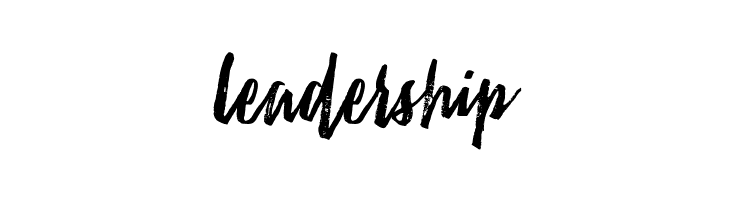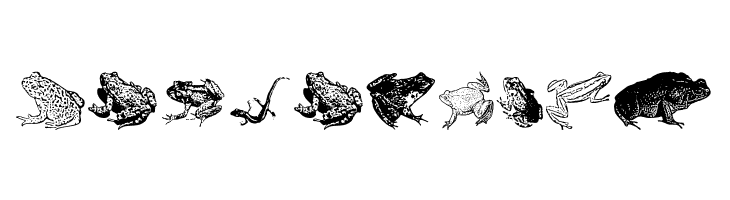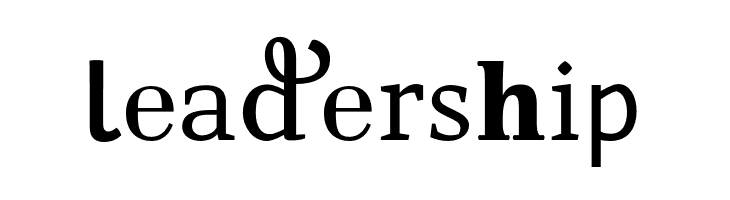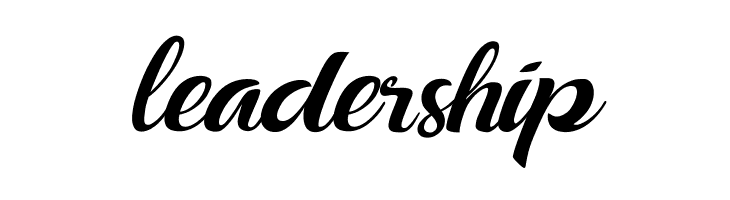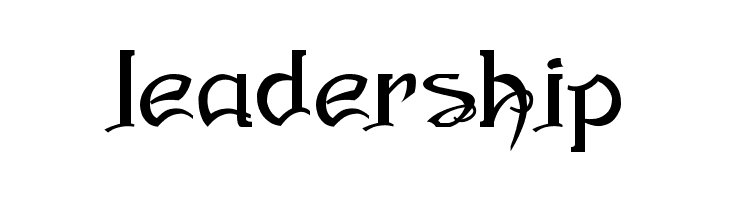
An ornate and decorative font with intricate swirls and flourishes.
A bold, distressed font with a rugged, grunge-like appearance.
A bold, flowing script font with elegant curves and dynamic style.
A bold, graffiti-inspired font with sharp, angular lines and dynamic energy.
A modern serif font with bold, elegant characters and unique design elements.
A modern, geometric sans-serif font with a sleek, condensed design.
A bold, geometric font with a modern and clean aesthetic.
A bold, modern sans-serif font with a condensed and geometric style.
A bold, geometric font with a modern and assertive style.
A bold, italicized font with strong lines and a modern, dynamic style.
A modern, italic, and condensed font with a sleek and dynamic style.
A modern, geometric sans-serif font with clean lines and uniform stroke width.
A modern, italic, and condensed font with a sleek and dynamic appearance.
A bold, modern font with a geometric and condensed style.
A modern, semi-bold italic font with a sleek, condensed style.
A casual, handwritten font with a playful and informal style.
An elegant script font with classic, flowing curves and decorative flourishes.
A decorative font with detailed amphibian illustrations for each character.
A bold, jagged font with an electrifying and dynamic style.
A bold, playful 3D font with a jagged outline.
A bold, gradient-style font with horizontal line textures for a dynamic look.
A bold, halftone-textured font with a dynamic, distressed appearance.
A jagged, bold font with a dynamic and edgy design.
A bold, jagged font with a dynamic and energetic style.
A bold, jagged font with a dynamic, zigzag pattern.
A bold, jagged font with a rugged, hand-cut appearance.
A bold, jagged font with a dynamic, edgy style.
A bold, brush script font with an expressive and hand-painted style.
A bold, brush-style script font with dynamic and expressive strokes.
A modern, geometric font with clean lines and a futuristic style.